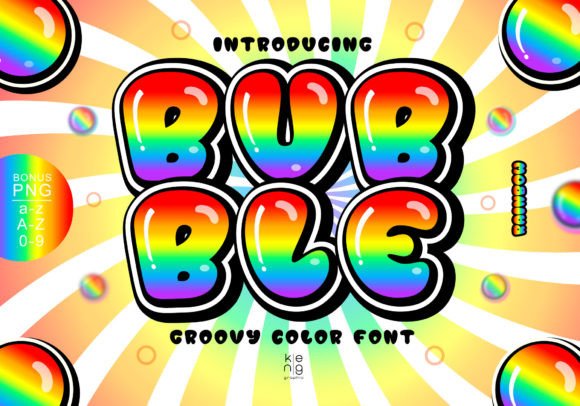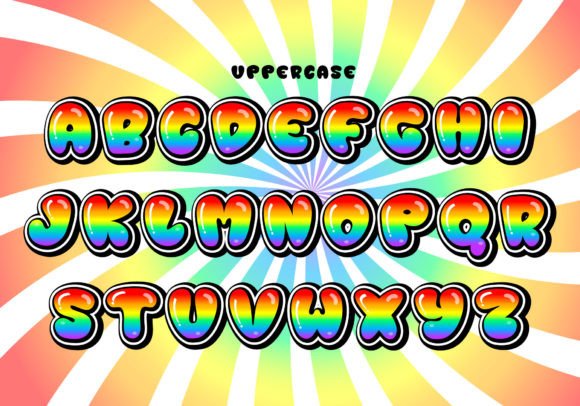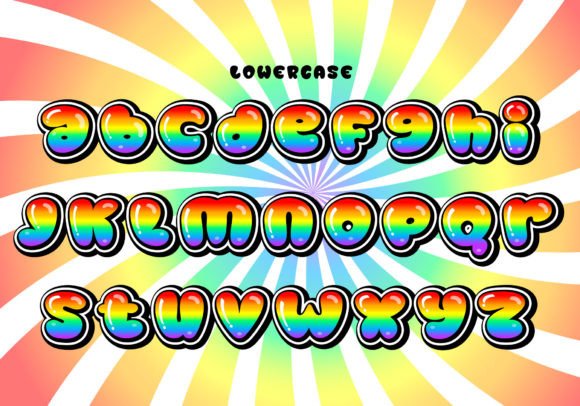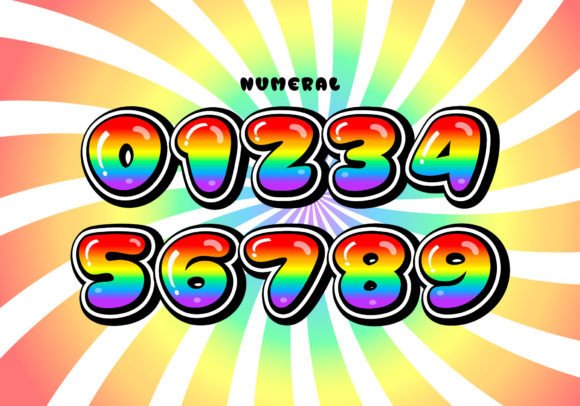
About the Bubble Rainbow Font
From logos to headlines, the Bubble Rainbow Font is the perfect choice for making a lasting impression. Bubble Rainbow is an attractive and groovy color font that is both colorful and bulky, with letters that pack a punch and demand attention. The letters are well-crafted, with a mix of bright hues and chunky shapes that create a sense of playfulness and energy. Its bold and vibrant appearance makes it perfect for logos, packaging, and designs that require a touch of excitement and personality.
Bubble Rainbow excels in applications demanding high visual impact, such as logos, short headlines, posters, and packaging design for products targeting a young, playful audience. Its bold forms work well for eye-catching signage or short bursts of text, but are less suitable for body copy or UI elements where readability is paramount. Extended use would quickly become fatiguing.
This font’s personality is undeniably bold and playful. To balance this vibrancy, consider pairing it with a clean sans-serif like Montserrat for supporting text or a classic serif like Garamond for a touch of sophistication. For a more modern feel, a geometric sans-serif such as Futura could create a striking contrast.
Avoid using Bubble Rainbow in contexts requiring subtlety or elegance. Its chunky, colorful nature is best suited for brands and projects emphasizing fun, energy, and a youthful aesthetic.